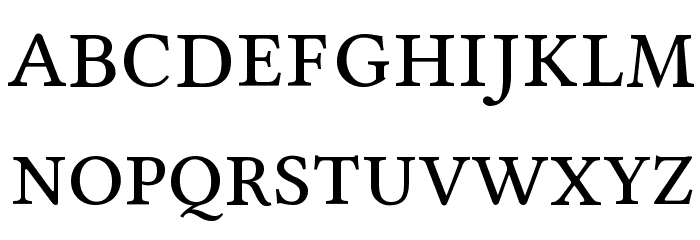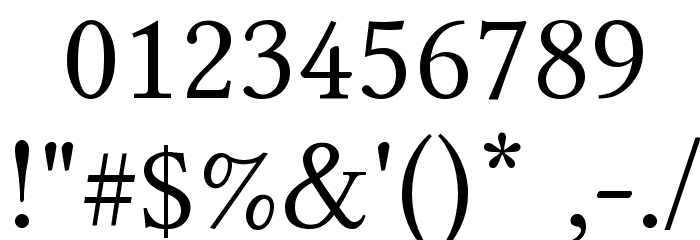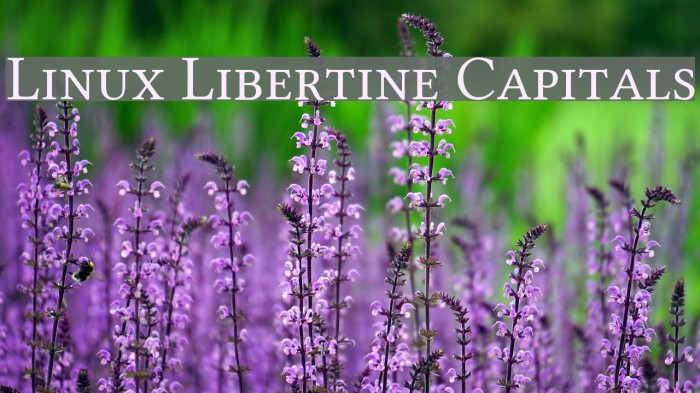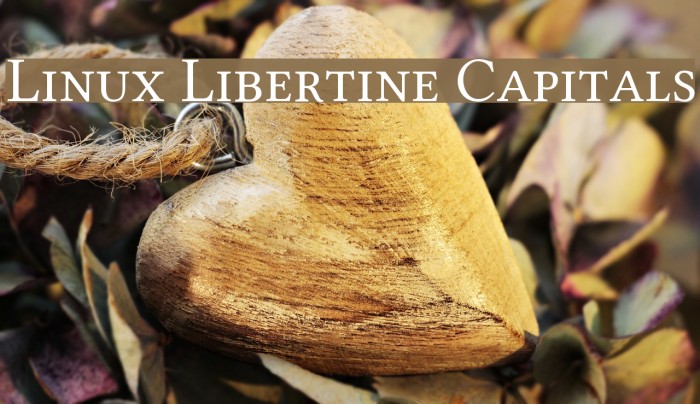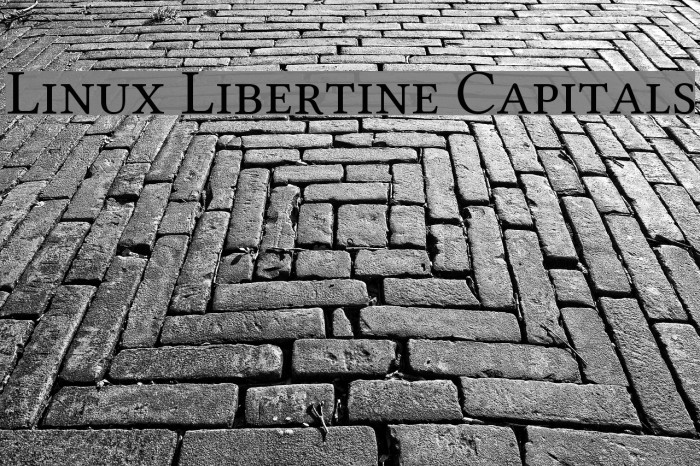
Linux Libertine Capitals Font
This font exhibits a classic serif style with elegant and refined strokes. The characters are well-proportioned, featuring distinct serifs that add a touch of sophistication. The uppercase letters are bold and commanding, while the lowercase letters maintain a graceful appearance. The numerals are clear and easy to read, making them suitable for various applications. Special characters are designed with the same attention to detail, ensuring consistency throughout the typeface. The overall design is versatile, suitable for both formal and informal contexts, and it maintains readability across different sizes.
A classic serif font with elegant strokes and refined serifs.
- Proposed Projects: Ideal for book typesetting, formal invitations, branding, and editorial design.
- Category: Serif
- Overall Style: Classic
- Use Case: Headlines, Body text, Logos